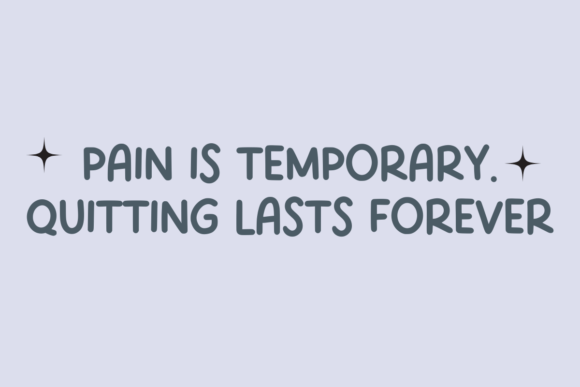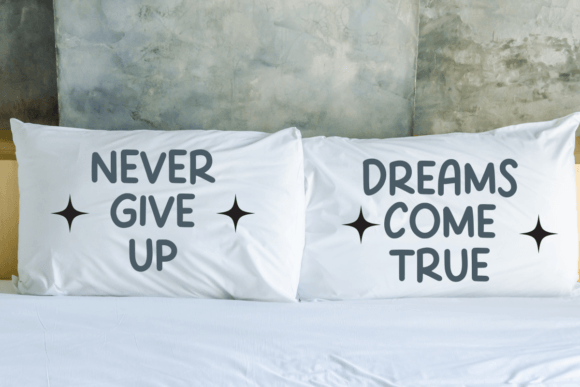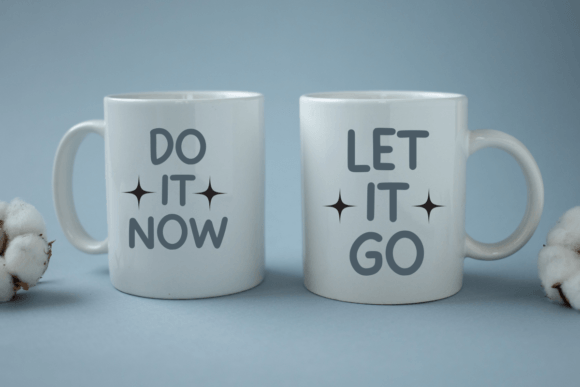
Introduction to Shine Star Font
Have you ever stared at a blank canvas, feeling the urge to bring a creative project to life, only to be held back by the perfect font? The moment of truth arrives when you stumble upon the perfect match, and your imagination runs wild. That’s exactly what happens when you discover the Shine Star Font – a delightful, handwritten font that radiates warmth and friendliness.
This charming font is more than just a pretty face; it’s a versatile design resource that can elevate any creative project. With its natural and unique style, Shine Star Font is the perfect companion for designers seeking to add a touch of personality to their work. Whether you’re working on a digital design or a print project, this high-quality font is sure to shine.
Key Features of Shine Star Font
- Transparent Background: The Shine Star Font features a transparent background, making it easy to layer over images or use in creative projects.
- High-Quality Design: Shine Star Font is a high-quality design resource, ideal for creative projects that require a unique and eye-catching font.
- Unique Character Set: Shine Star Font features a unique character set, including a range of special characters and symbols, perfect for adding a touch of creativity to any project.
Honest Review: Shine Star Font
As a designer, I’ve come across my fair share of fonts, but the Shine Star Font has caught my attention for its unique design. I was excited to dive in and see if it would be a valuable addition to my design resource library.
- ✨ The font has a high quality design that’s perfect for creative projects where you want to add a touch of whimsy and magic.
- ✨ The font is designed with a transparent background, making it easy to use in a variety of design applications.
- ⚠️ The font may not be suitable for formal or professional projects where a more traditional font is required.
- ⚠️ Some users may find the font’s design to be too playful or childish, depending on their personal taste.
Overall, I’m impressed with the Shine Star Font’s unique design and versatility. It’s a great addition to any designer’s library, especially for creative projects where a high quality, fun font is needed.
Shine Star Font Overview
The Shine Star Font is a high-quality, free download design resource ideal for creative projects that require a touch of elegance and sophistication. With its transparent background, this font is perfect for adding a subtle shine effect to your designs.
Common Use Cases for Shine Star Font
The Shine Star Font is ideal for a variety of creative projects, including wedding invitations, birthday party decorations, and social media graphics. Its transparent background and high-quality design make it perfect for adding a touch of elegance and sophistication to any design.